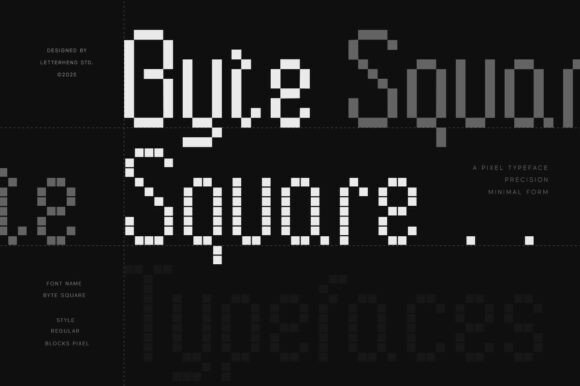
The Retro-Futuristic Charm of Byte Square Font
I’ll never forget the design project that led me to discover Byte Square Font. I was working on a retro-themed video game, and my client specifically asked for a font that would transport players back to the 8-bit era. I scoured the internet, tried countless fonts, but nothing seemed to capture the essence of classic video games. That was until I stumbled upon Byte Square Font. Its pixel-block letterforms and precise grid-based construction instantly reminded me of old computer displays and classic 8-bit games. It was love at first sight! 💻
A Designer’s Honest Review
What I Love About Byte Square Font ✨
- 💯 Retro-futuristic aesthetic: Byte Square Font perfectly captures the spirit of digital minimalism and early computer typography.
- ✅ Versatility: This font works beautifully for various design projects, from app interfaces to large-scale event displays.
- 🔍 Precision and clarity: The font’s grid-based construction ensures it remains crisp and clear, even at small sizes.
- 🎨 Design flexibility: Byte Square Font comes with a range of OpenType features, glyphs, and stylistic alternates to help you customize your designs.
- 🤔 Limited character set: As a monospaced font, Byte Square Font might not be the best choice for body text or long paragraphs.
- ⚠️ Legibility at very small sizes: While the font remains clear at small sizes, it may become less legible when used at extremely small sizes (e.g., 6-8 points).
Byte Square Font comes with a range of OpenType features and glyphs that allow you to customize your designs. Some of these features include:
- Stylistic alternates: Swap out letterforms for alternative styles.
- Ligatures: Combine letterforms for a more cohesive look.
- Glyphs: Access additional characters, such as icons and symbols.
Byte Square Font was designed with a passion for digital minimalism and retro-futurism. The creator, a self-proclaimed pixel art enthusiast, aimed to distill the essence of classic 8-bit displays and early computer typography into a modern, versatile font. By combining precise grid-based construction with pixel-block letterforms, the designer crafted a unique and instantly recognizable style that’s perfect for modern tech and gaming projects.
| What is Byte Square Font? | Byte Square Font is a pixel typeface that captures the essence of digital minimalism and early computer typography. |
| Is Byte Square Font suitable for body text? | No, Byte Square Font is a monospaced font best suited for headings, titles, and short text passages. |
| Does Byte Square Font come with OpenType features? | Yes, Byte Square Font includes a range of OpenType features, glyphs, and stylistic alternates. |